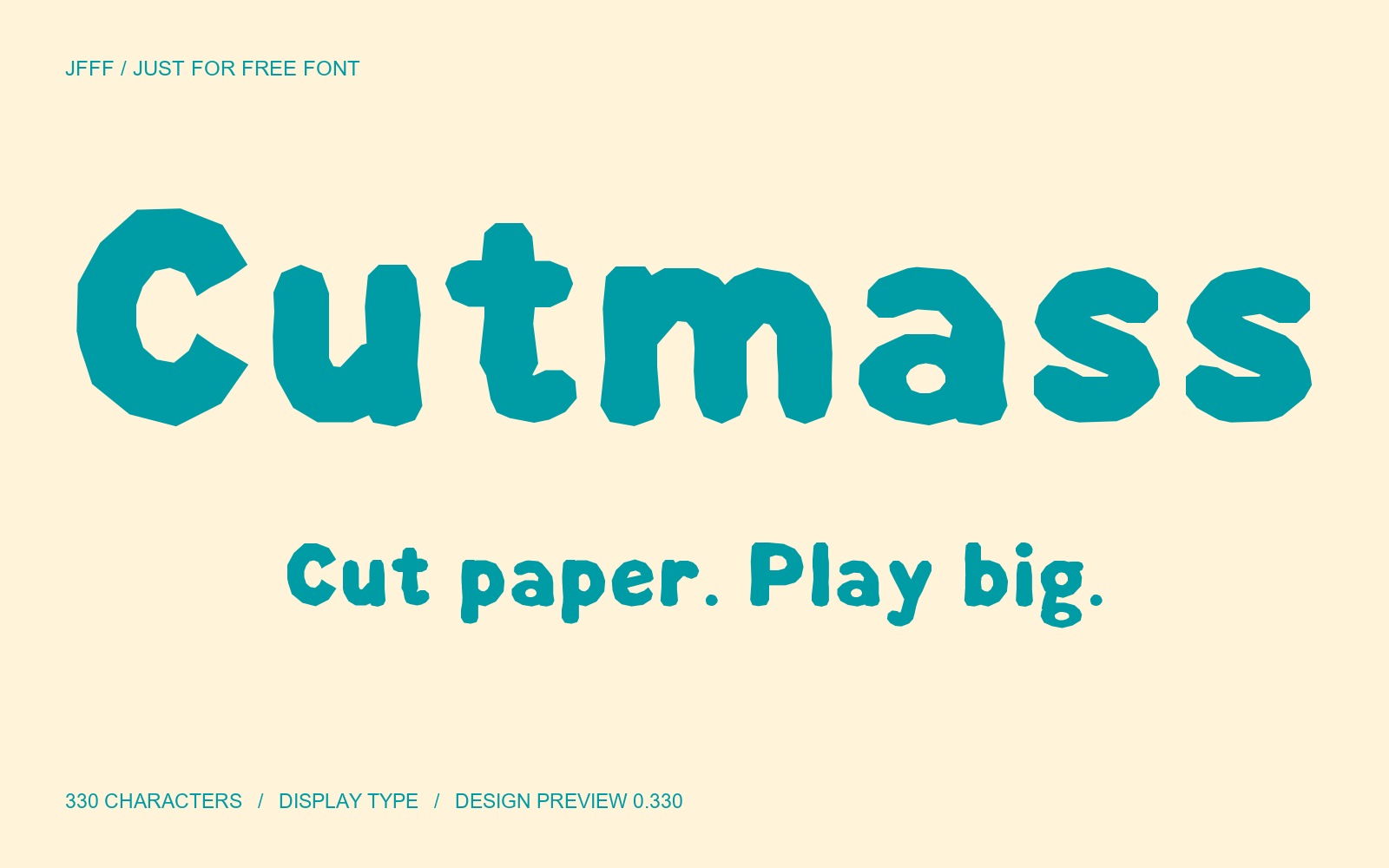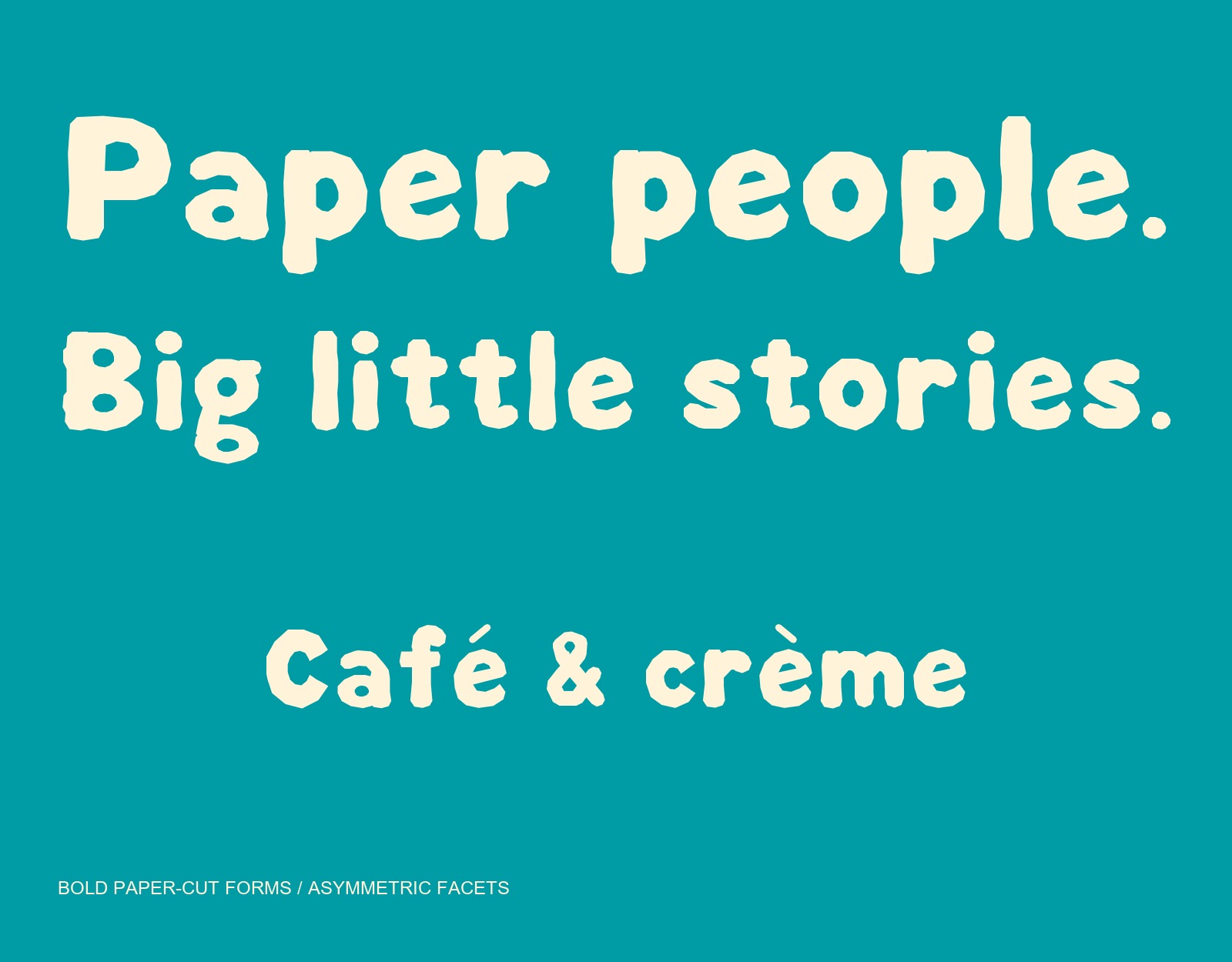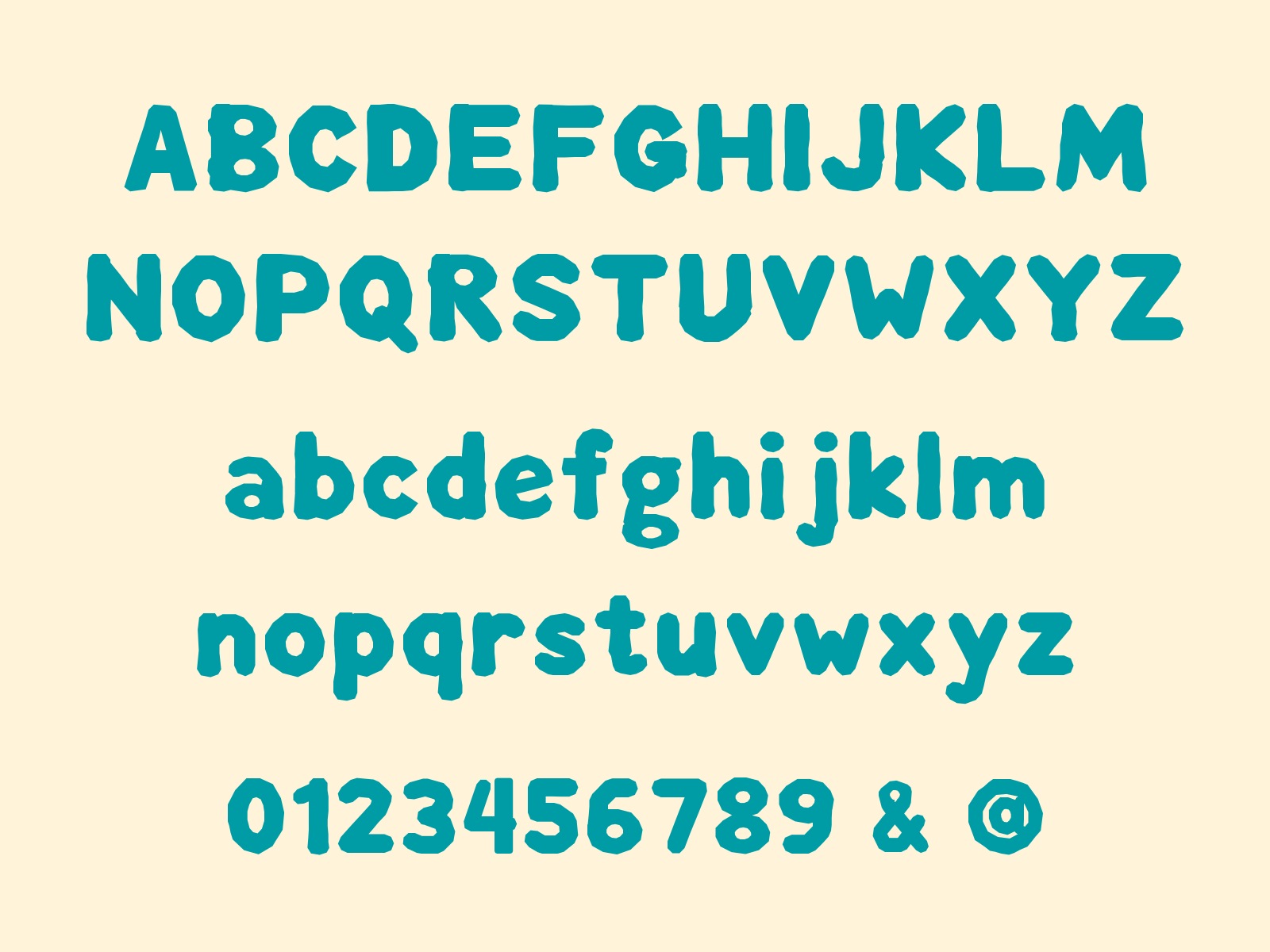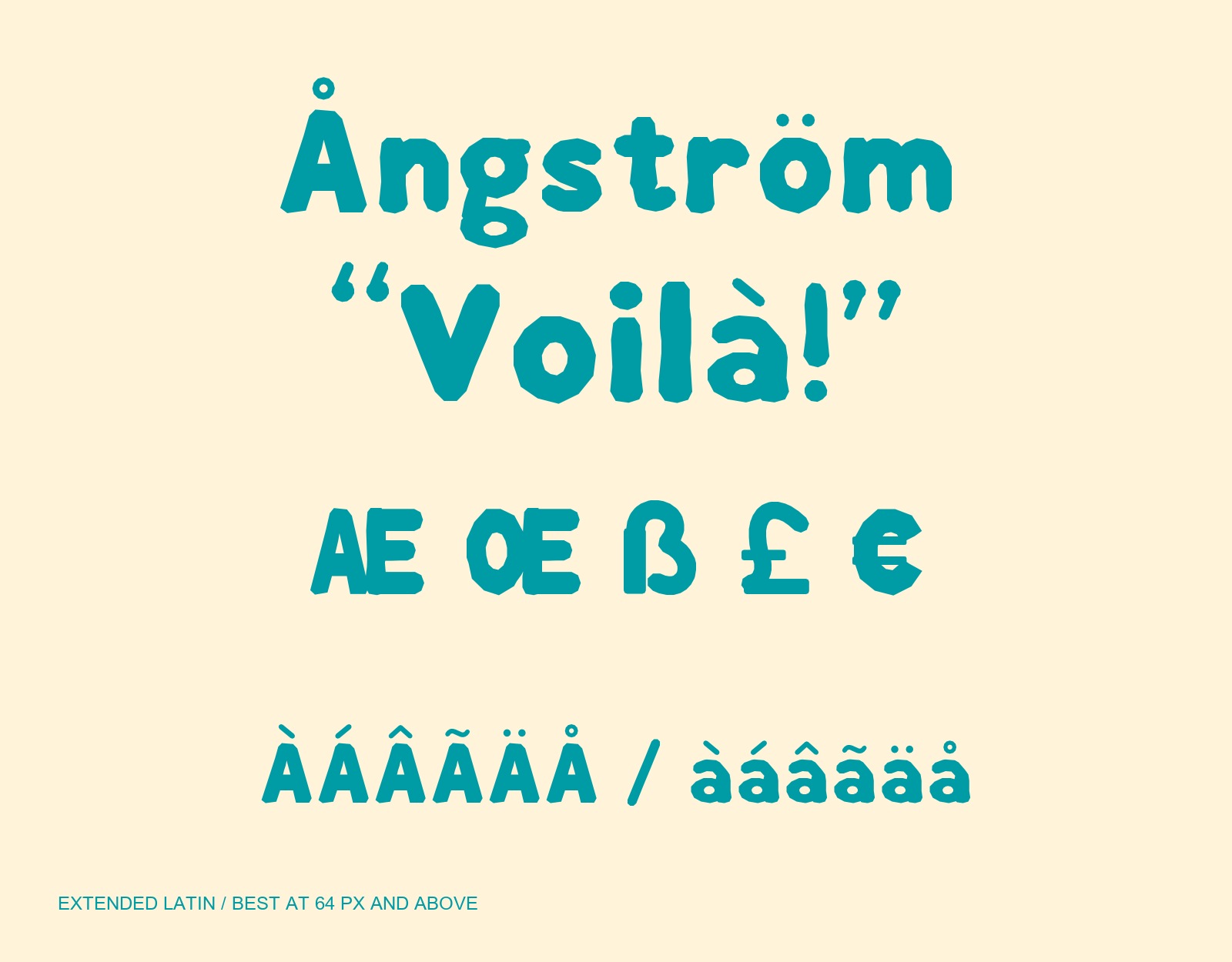
Cutmass is a bold paper-cut display font with asymmetric facets, heavy strokes and compact counters. Includes 330 encoded characters: uppercase, lowercase, figures, punctuation and extended Latin. Design Preview 0.330 is intended for short headlines, posters and playful packaging at 64 px or larger. The download contains a TTF and SIL OFL 1.1 license for free personal and commercial use. Small text, native editing-app installation and language-native editorial checks remain outside the completed review. Use precomposed (NFC) accented text. Specimen colors are illustrative; the font itself is monochrome.